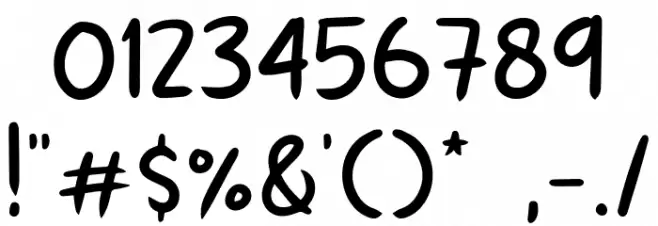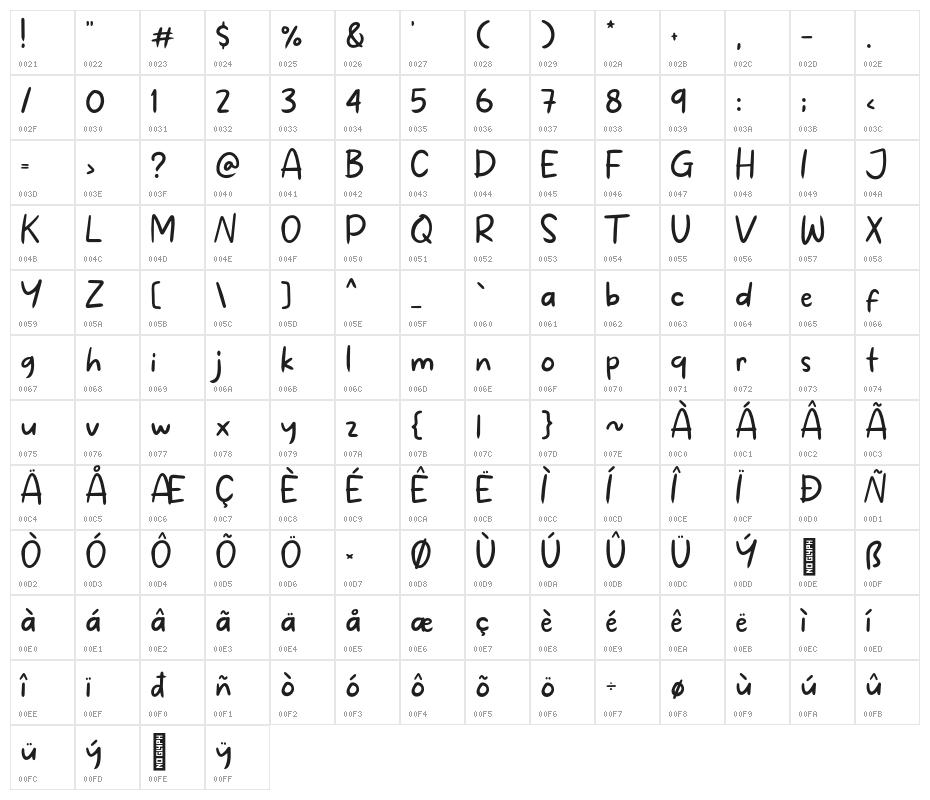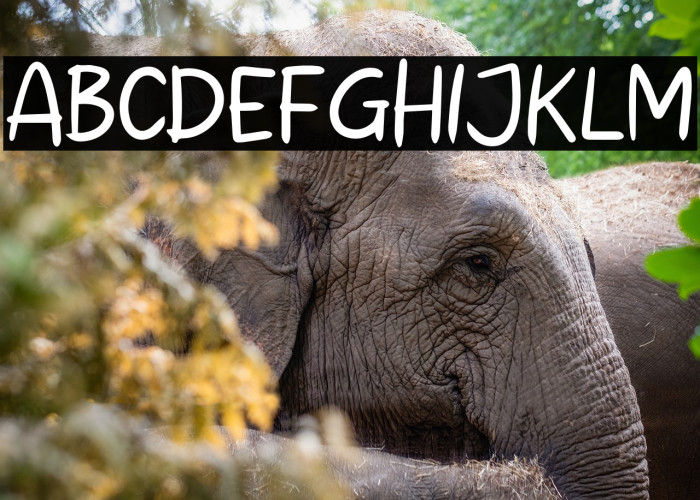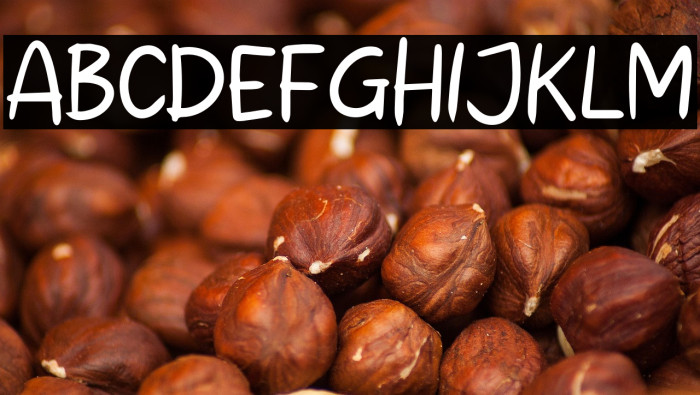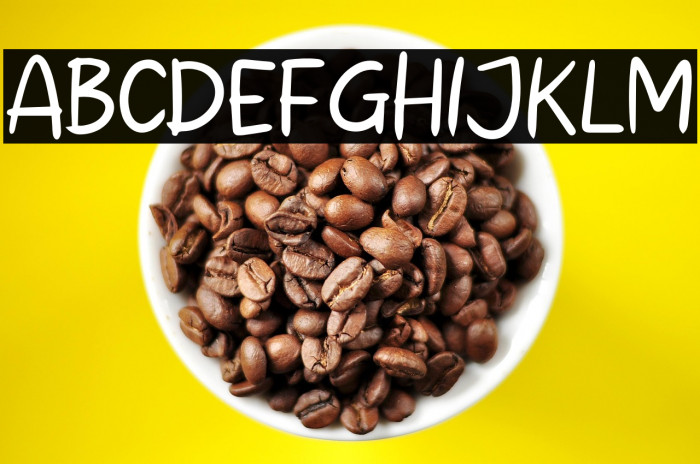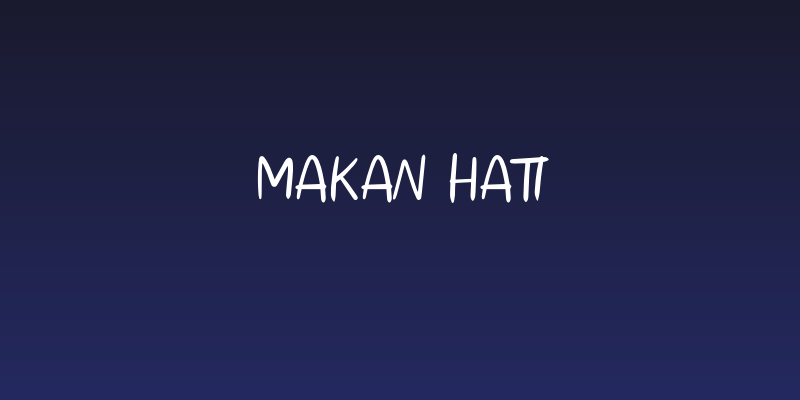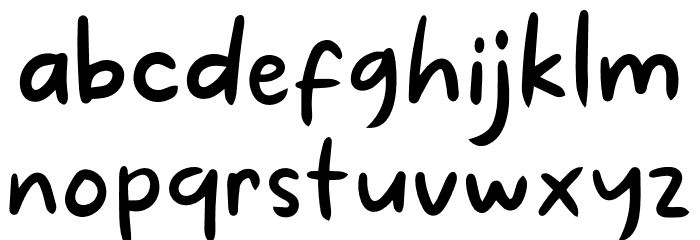
Makan Hati Font
Makan Hati Description
This font features a playful and casual handwritten style, characterized by its rounded and slightly irregular letterforms. The strokes are smooth and consistent, giving it a friendly and approachable appearance. The uppercase and lowercase letters maintain a uniform height, while the numerals and special characters blend seamlessly with the overall design. The font's organic flow and informal vibe make it suitable for projects that require a personal touch or a relaxed aesthetic.
| Use Case | Headlines, Informal text, Personal projects |
| Proposed Projects | Ideal for greeting cards, children's books, personal blogs, and informal branding. |